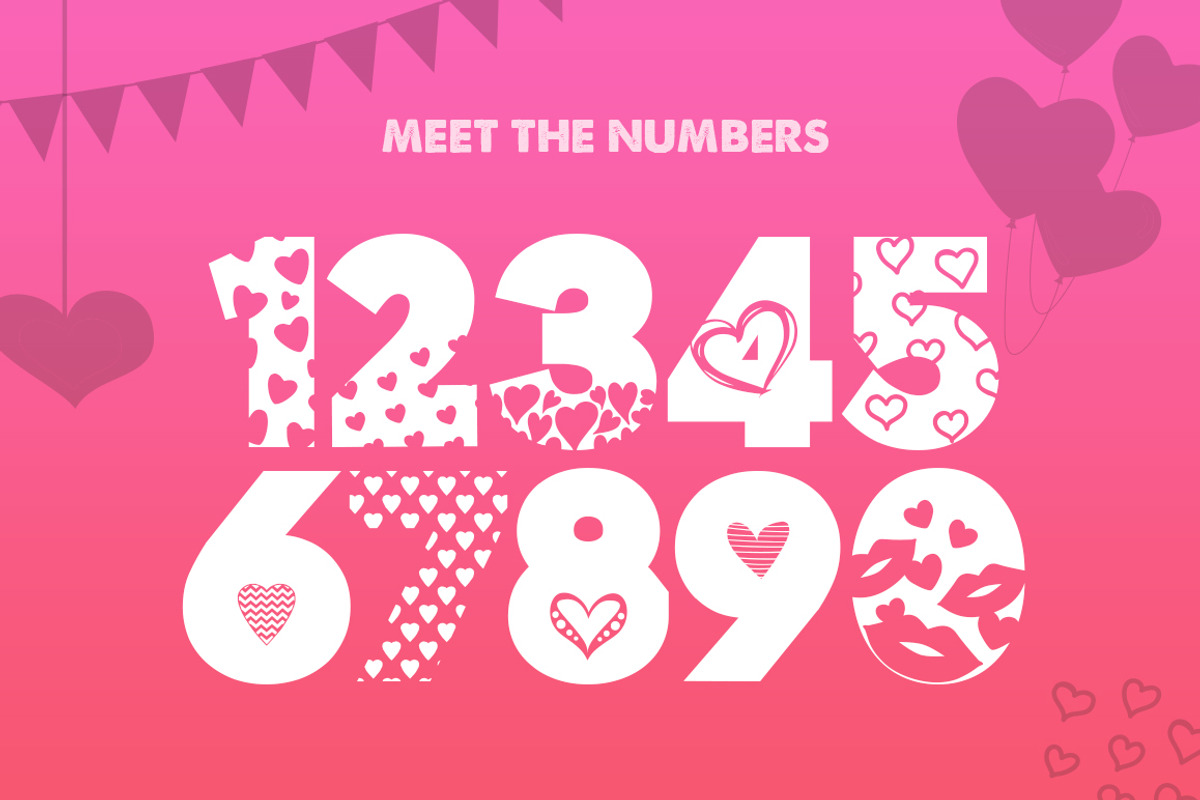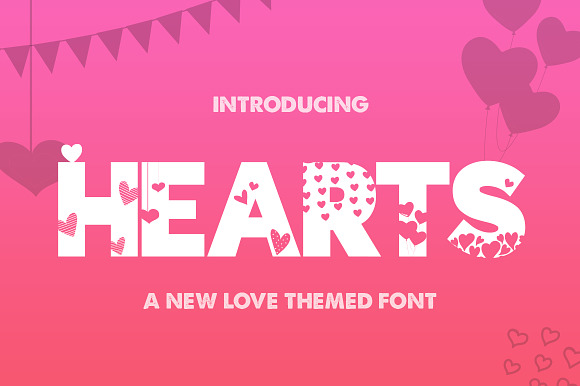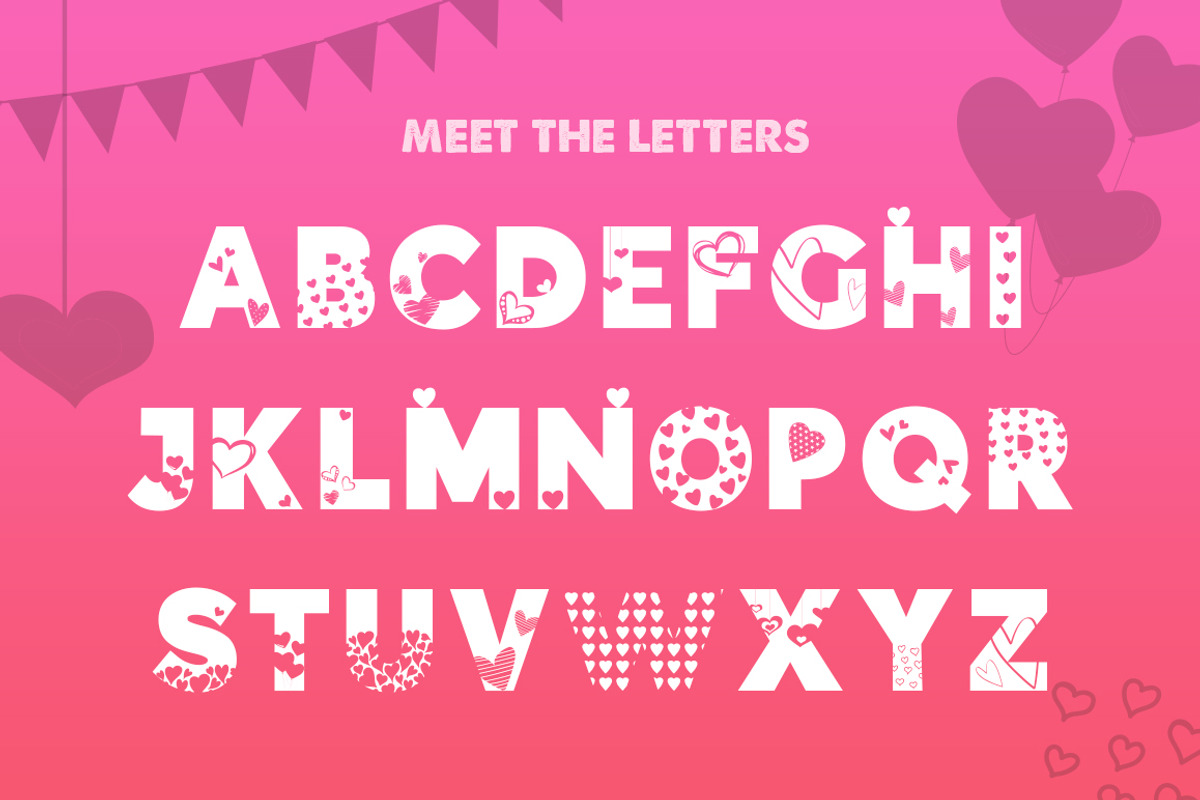
Hearts Silhouette Font
Why Hearts Silhouette Font is worth a look
Hearts Silhouette Font by Salt & Pepper Designs fits naturally into Branding, posters, packaging, typography.